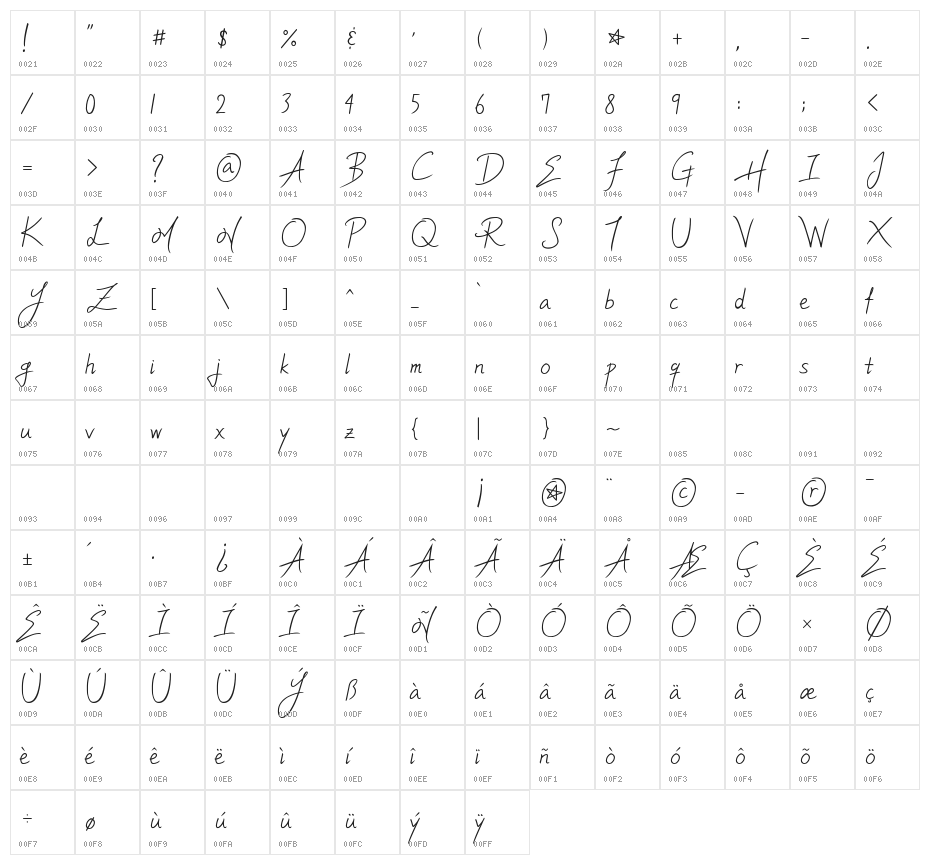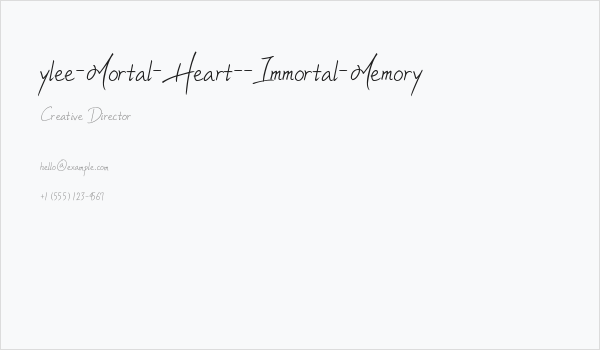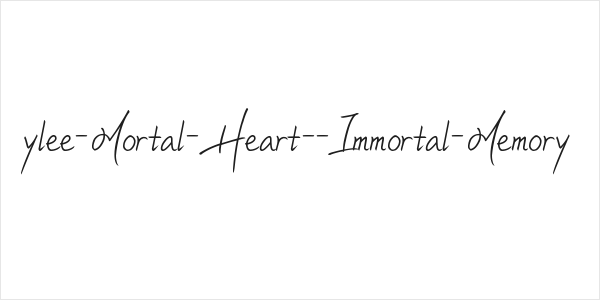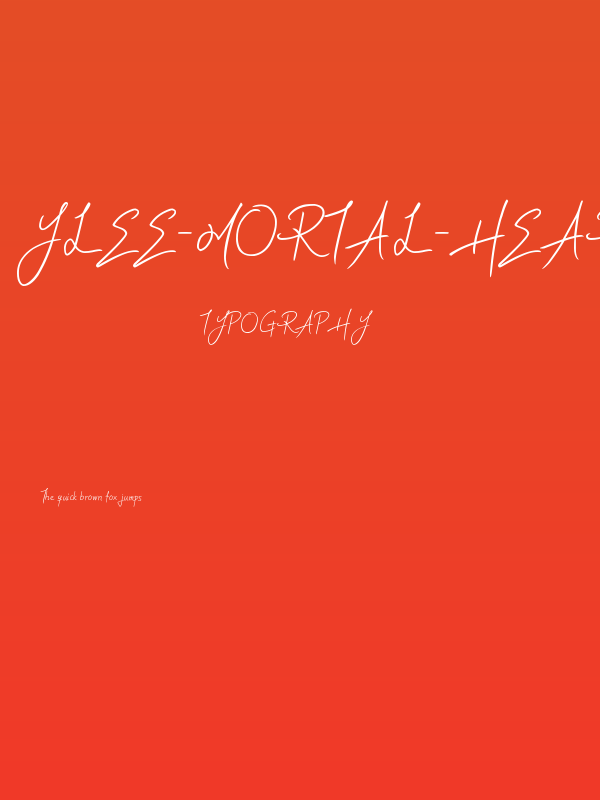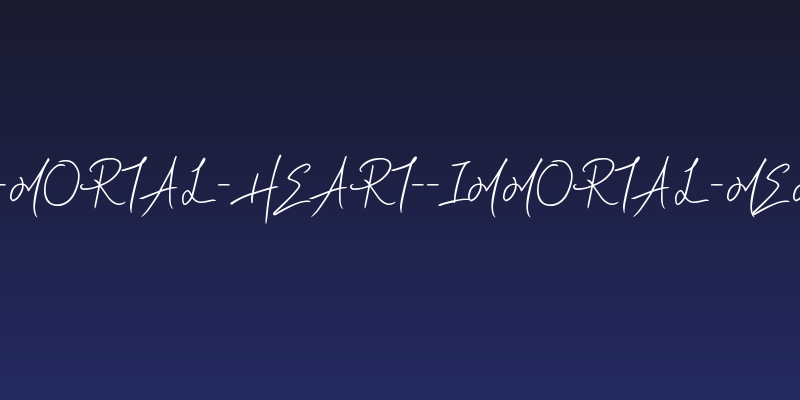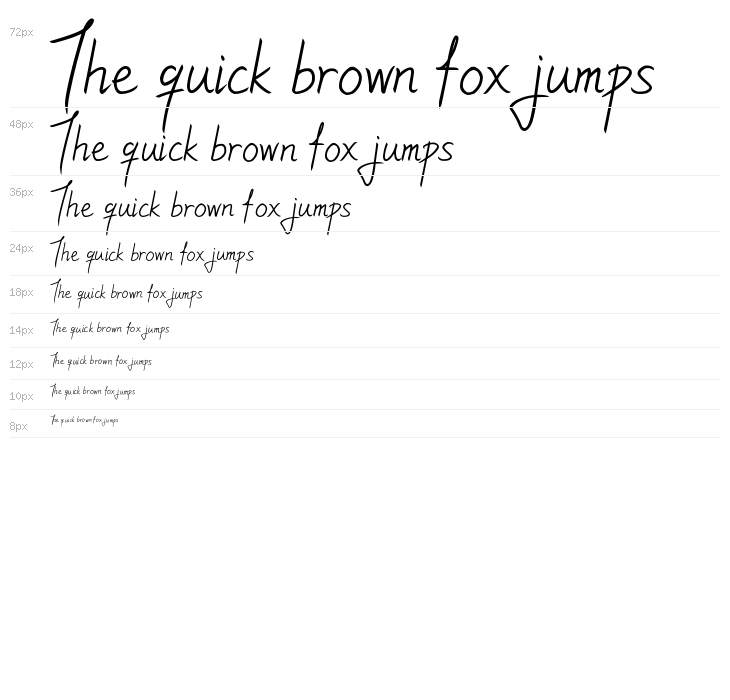
ylee-Mortal-Heart--Immortal-Memory Font
ylee-Mortal-Heart--Immortal-Memory Description
This font features an elegant and flowing script style, characterized by its smooth, cursive strokes and a handwritten appearance. The uppercase letters are tall and slightly slanted, giving a sense of movement and grace. The lowercase letters maintain a consistent flow, with some characters featuring distinctive loops and curves that add to the overall aesthetic. Numbers and special characters are designed to complement the alphabet, maintaining the same fluid style. The font's design is both artistic and readable, making it suitable for various creative applications.
| Overall Style | Elegant, Artistic |
| Use Case | Logos, Invitations, Artistic text |
| Proposed Projects | Ideal for wedding invitations, greeting cards, personal branding, and artistic projects. |